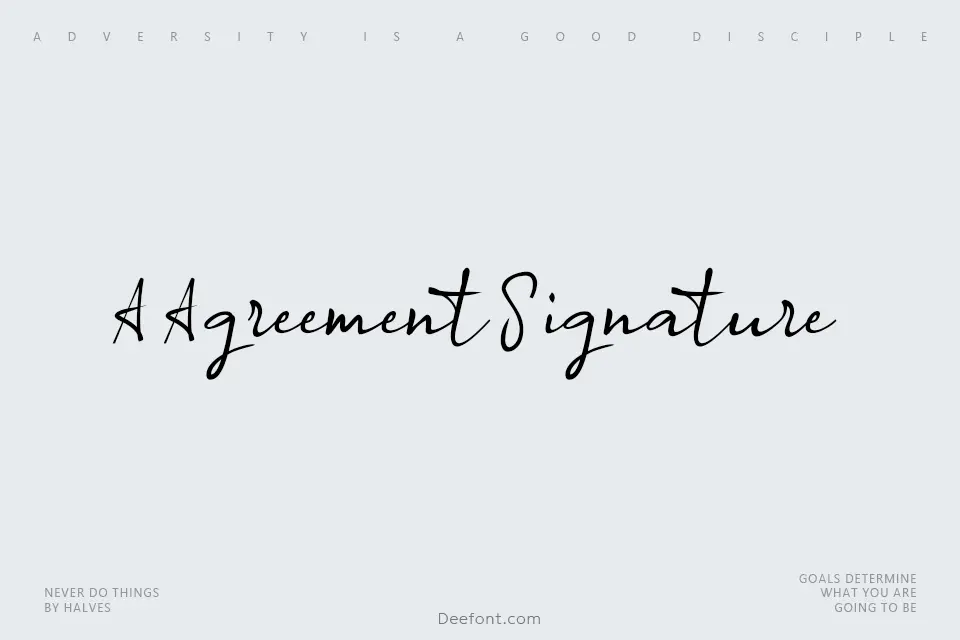
A Agreement Signature Font
A Agreement Signature Font is a sophisticated handwritten script typeface designed for formal applications including agreements, legal documents, and signature elements. Featuring natural pen-stroke aesthetics and flowing letterforms with 95 glyphs, this font delivers authentic cursive elegance suitable for certificates, contracts, business correspondence, and branding projects requiring a personal, authentic touch. The versatile design combines legibility with refined calligraphic character.